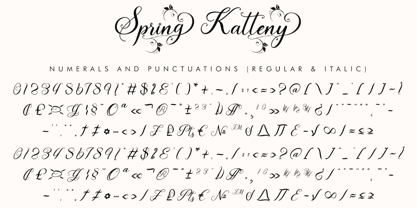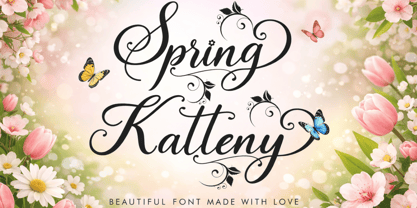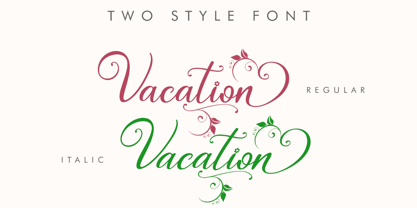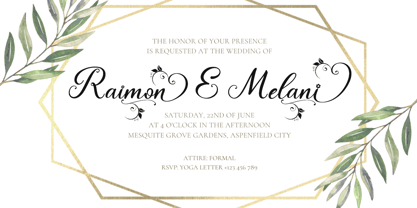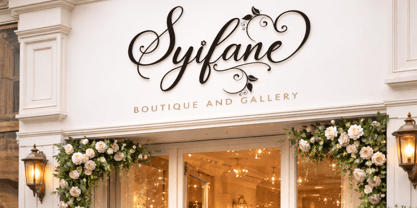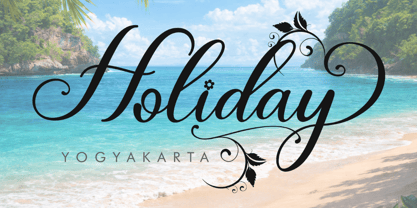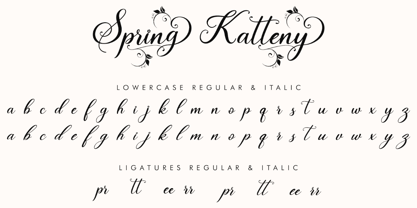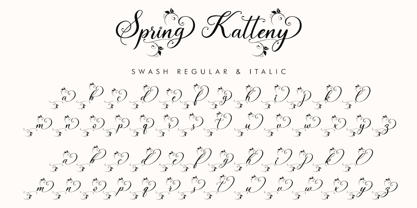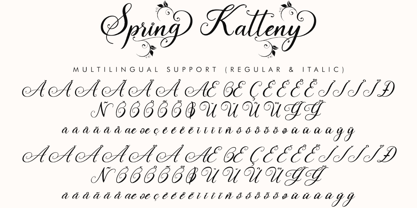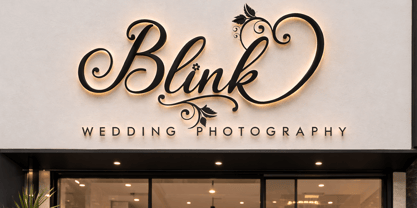
Spring Katteny
The Spring Katteny Font Family was designed by Isroni Yoga Prasetya and published by Yoga Letter. Spring Katteny contains 2 styles and family package options. More about this family
"Spring Katteny" is a beautiful and pretty handwritten font. This font comes in regular and italic types. It comes with uppercase and lowercase letters, ligatures, swashes, numerals, punctuations, and multilingual support. It's perfect for spring, summer, holidays, St. Patrick's Day, Mother's Day, Father's Day, Women's Day, weddings, photography, print, banners, branding, logos, stickers, and more.